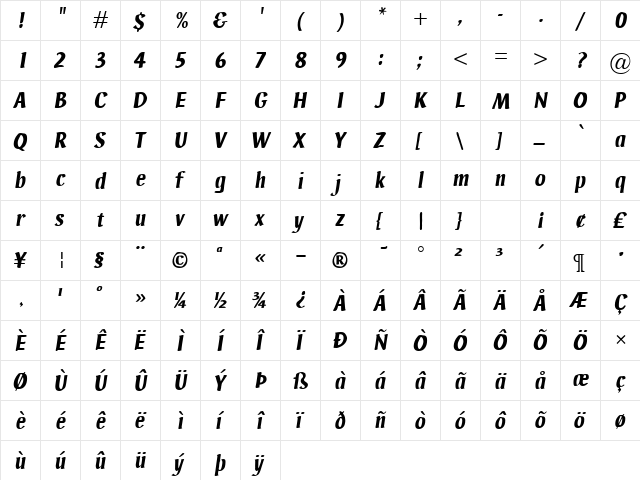
Ad Hoc Italic
Design Context for Ad Hoc Typeface
Ad Hoc is a composed and adaptable typeface that performs quietly and consistently across a wide range of design contexts. Its italic angle brings a sense of urgency and motion to the letterforms.
Pro Tip: Try Ad Hoc for annotation and caption copy alongside an upright companion — the contrast in angle creates a dynamic but ordered typographic system.